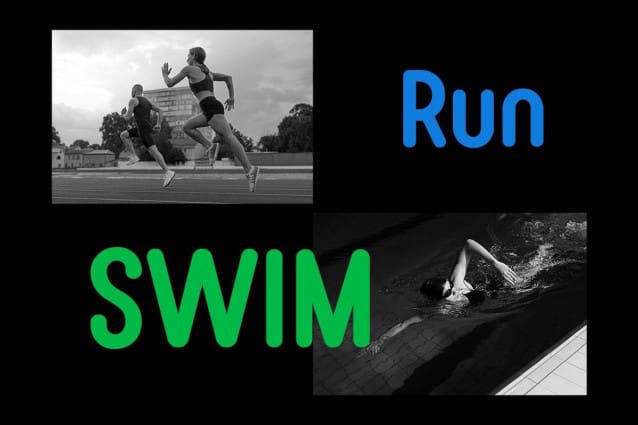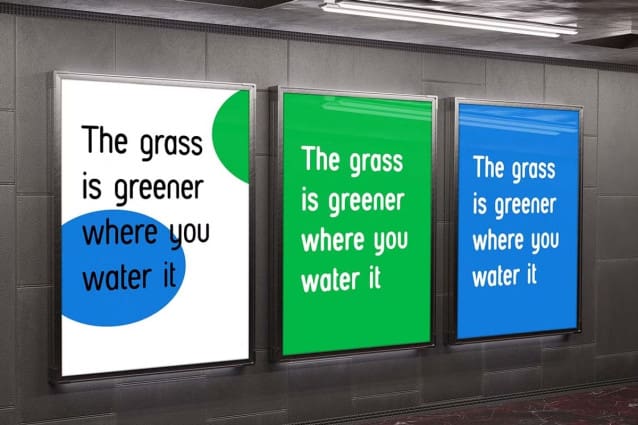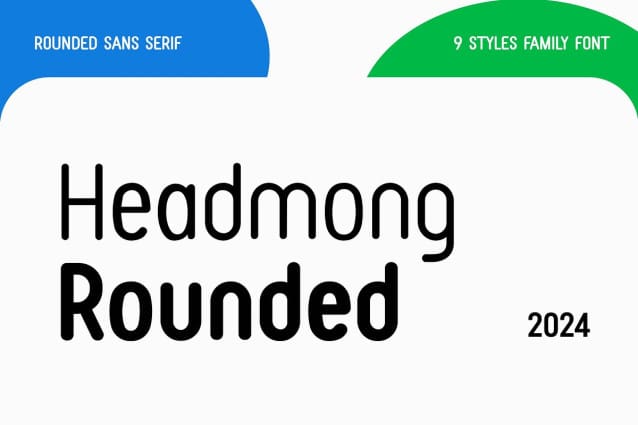
Headmong Rounded Font Family
Headmong Rounded Font Family is a rounded sans-serif font with smooth and soft edges. Its letters have a friendly and modern look, making it great for casual and approachable designs. The round shapes give it a warm and inviting feel.